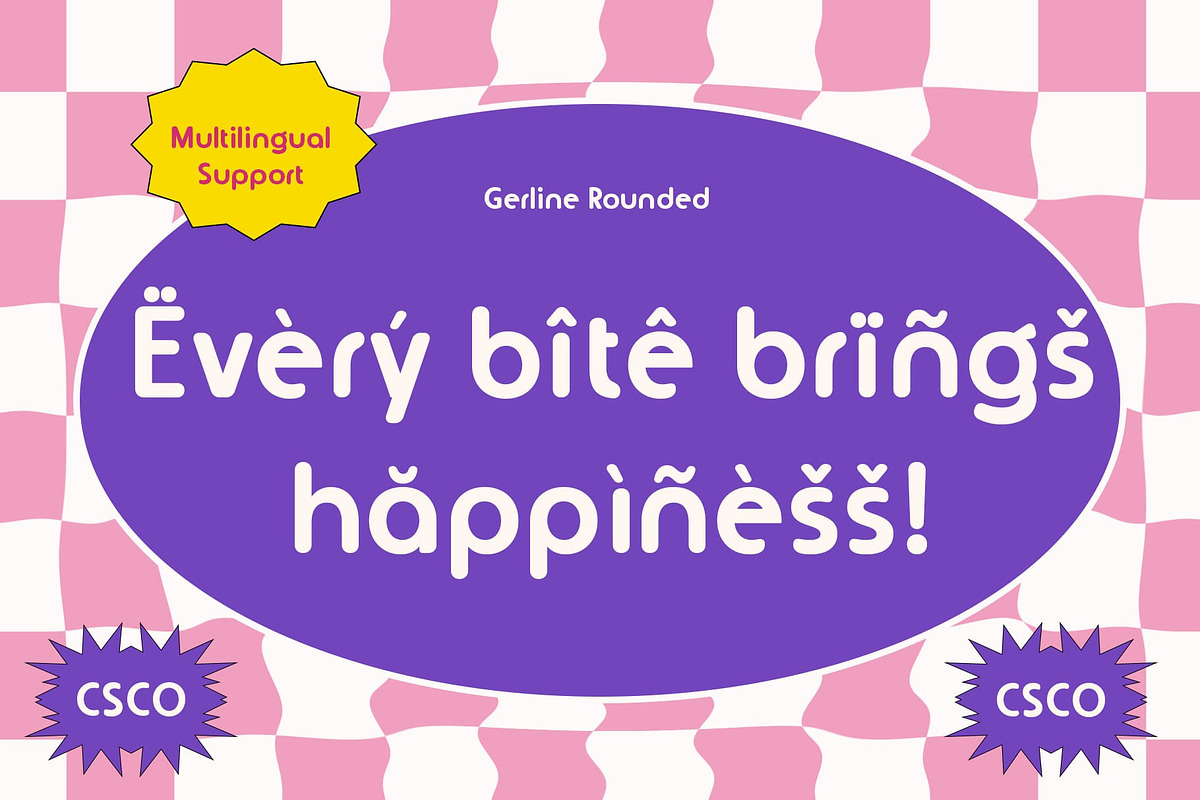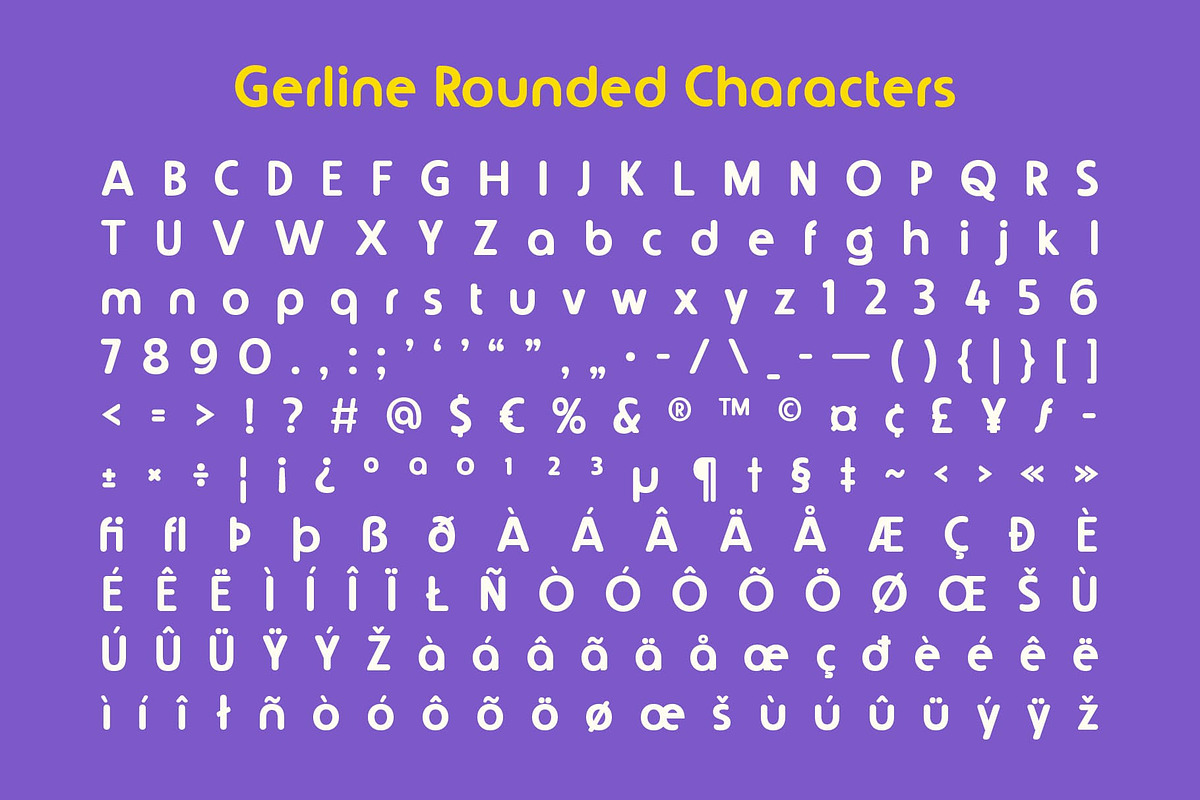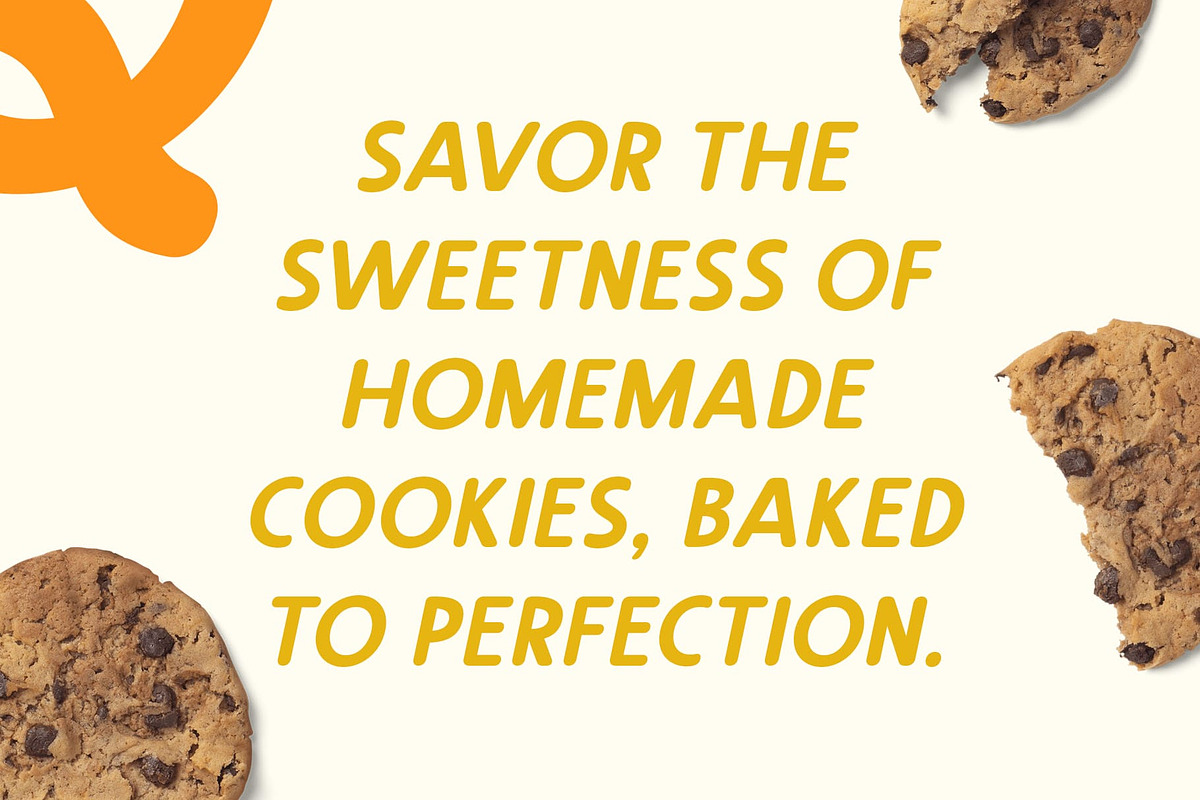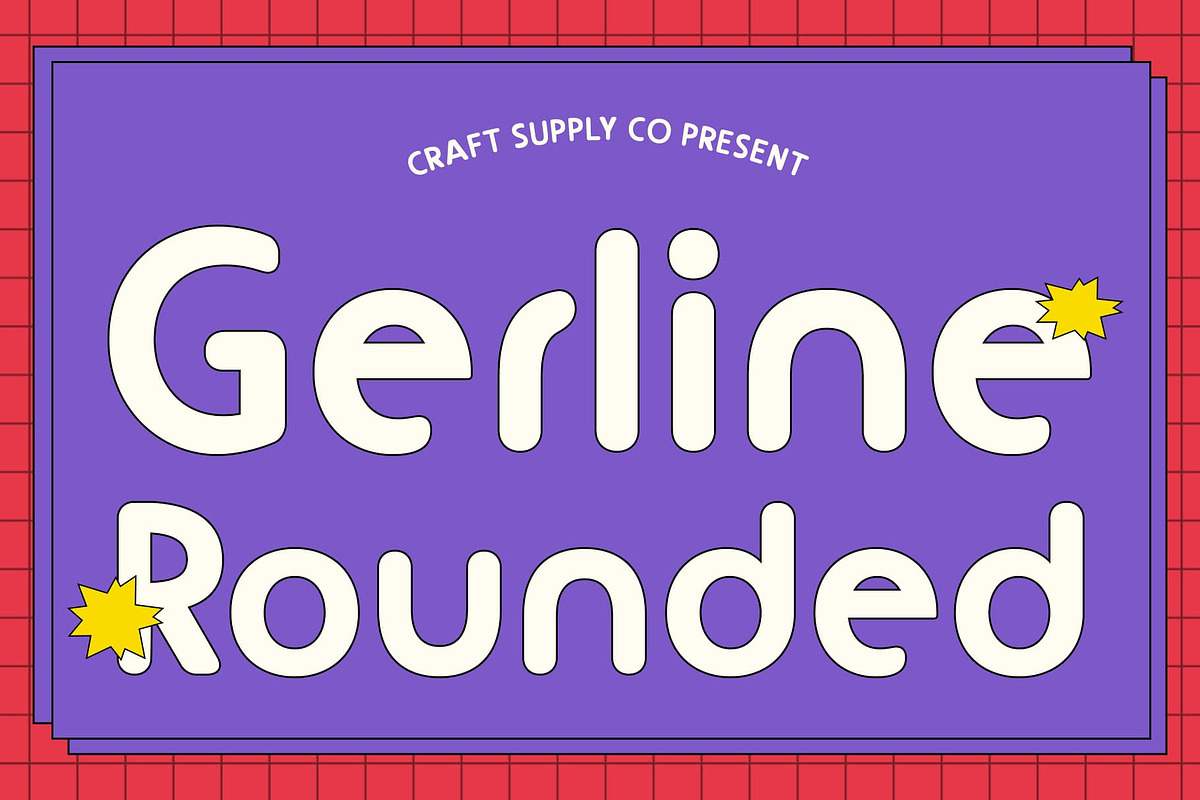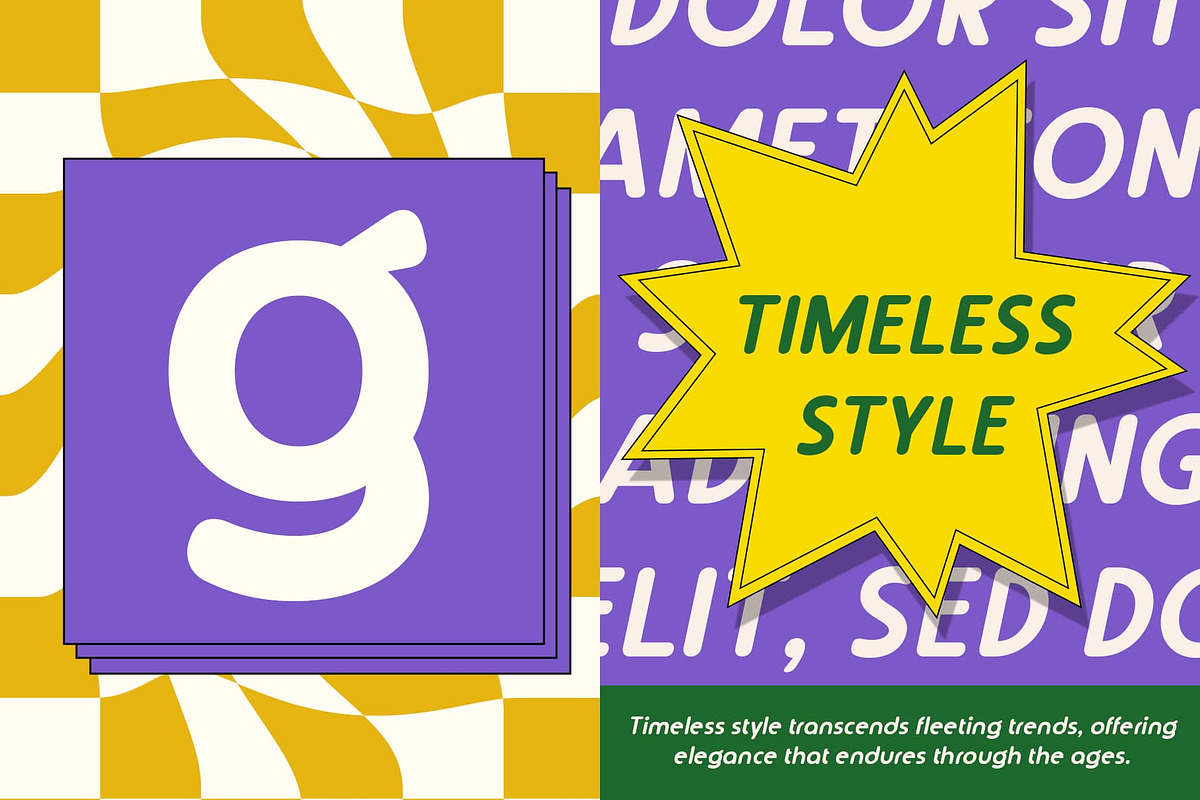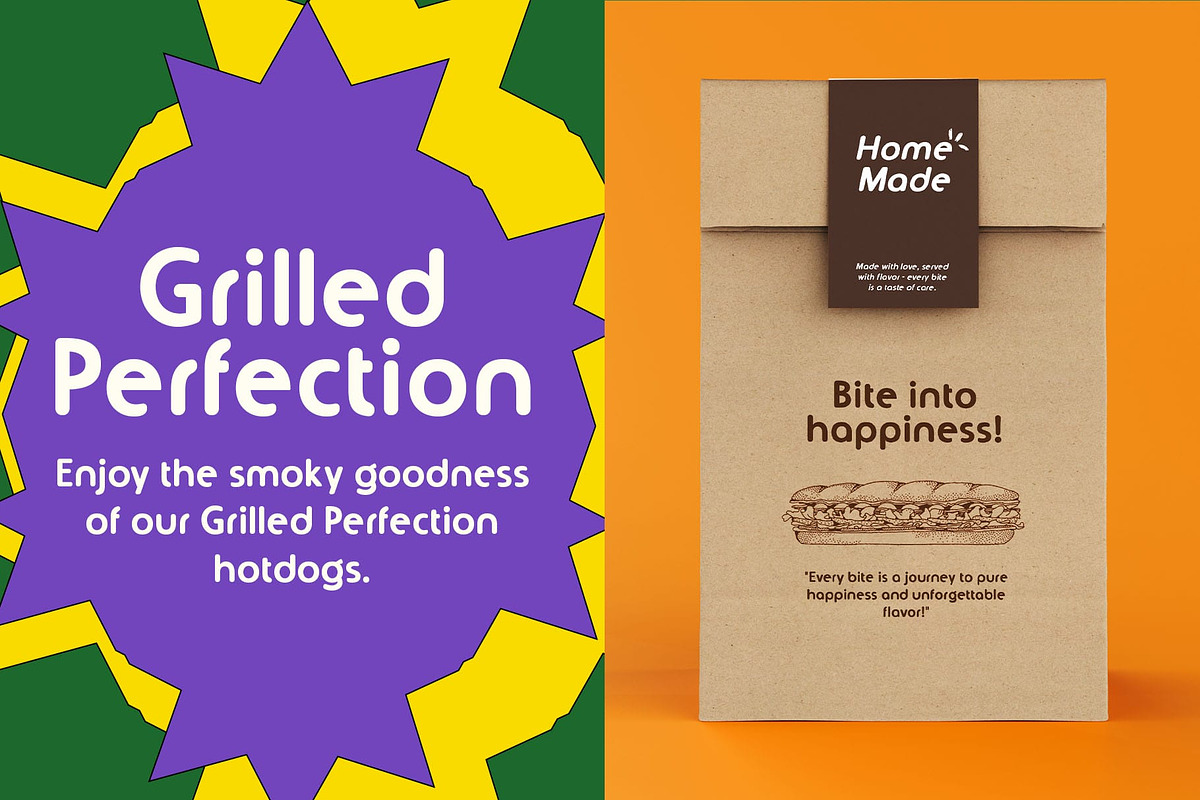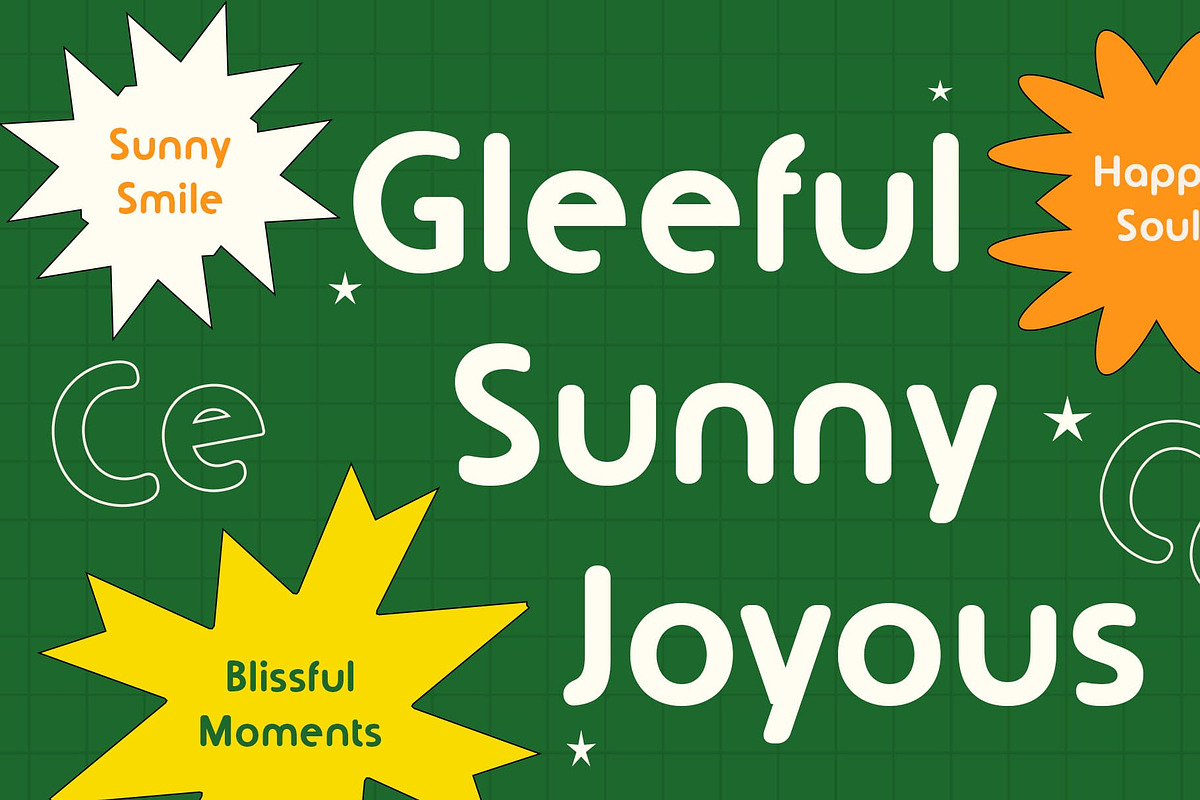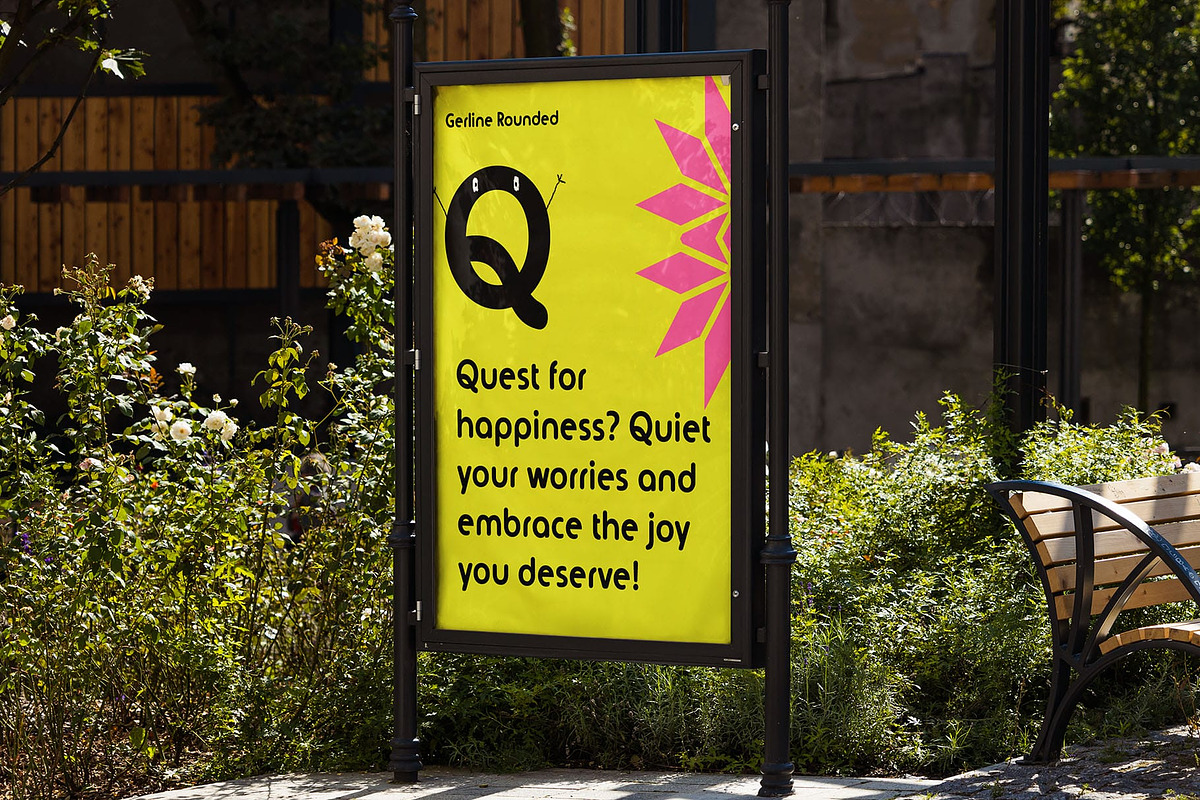
Gerline Rounded
Gerline Rounded Font: Geometric Elegance with a Friendly Touch
Modern Sans-Serif Font with Rounded Design Gerline Rounded is a modern sans-serif font that combines contemporary geometric forms with smooth, rounded corners. The clean, simple lines of the font ensure excellent readability, while the bold strokes and geometric shapes provide a structured, strong appearance. This combination results in a sophisticated and modern design, perfect for professional applications.
Elegant and Professional Appeal With its balanced proportions and minimalist design, Gerline Rounded exudes elegance and professionalism. The rounded corners soften the bold strokes, giving the font a friendly yet refined appearance. This makes it ideal for a wide range of uses, from corporate branding to high-end marketing materials, where clarity and a modern look are essential.
Versatile for Various Applications Gerline Rounded’s clean lines and geometric shapes make it highly versatile, suitable for diverse design needs. Whether you are designing a website, creating a brand identity, or crafting marketing materials, this font adds a contemporary touch that resonates with professionalism while maintaining approachability.
Modern, Readable, and Stylish Gerline Rounded’s minimalist design not only enhances readability but also injects a modern, stylish vibe into your projects. Whether it’s for sleek business presentations or website headers, this font delivers an ideal balance of elegance and modernity, ensuring that your designs leave a lasting, professional impression.